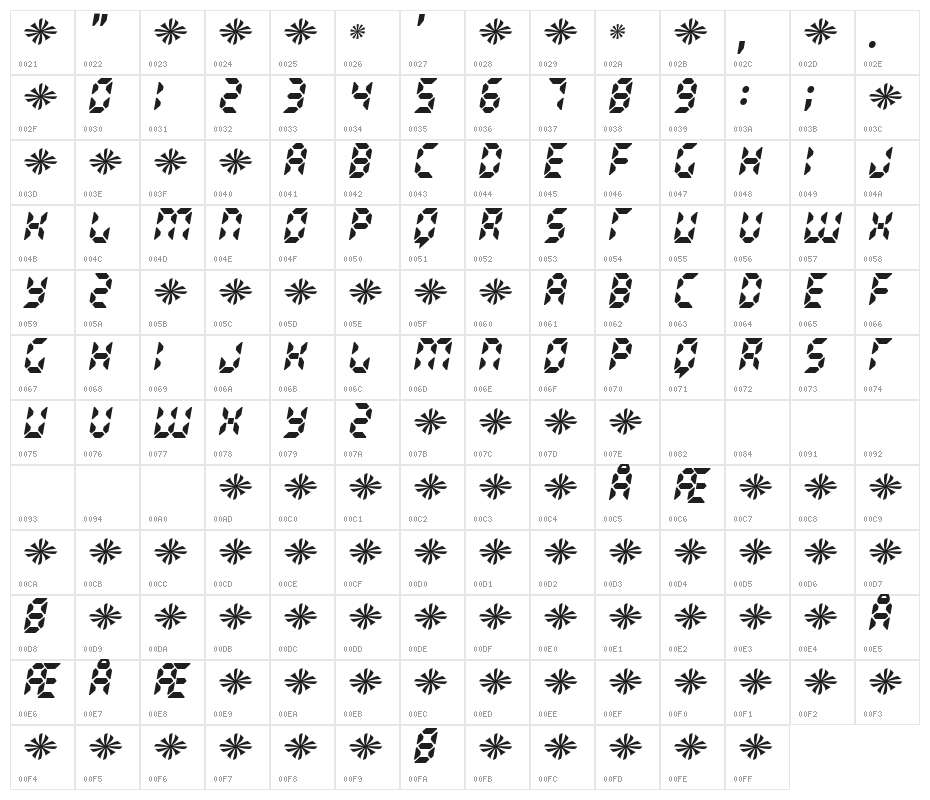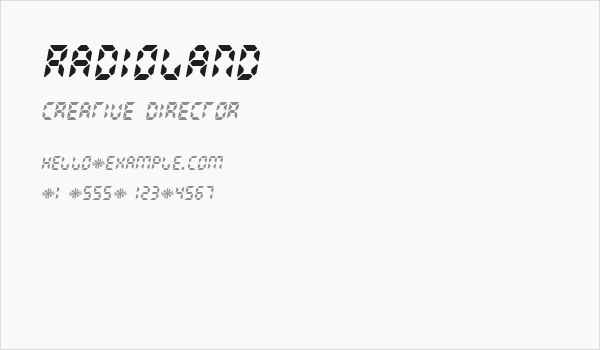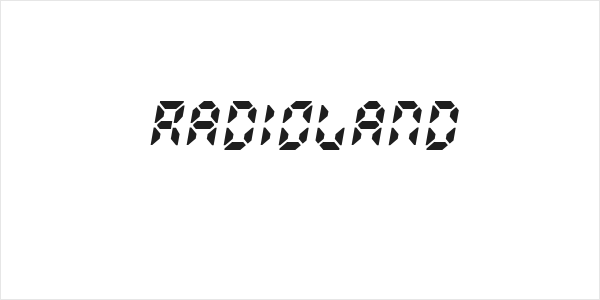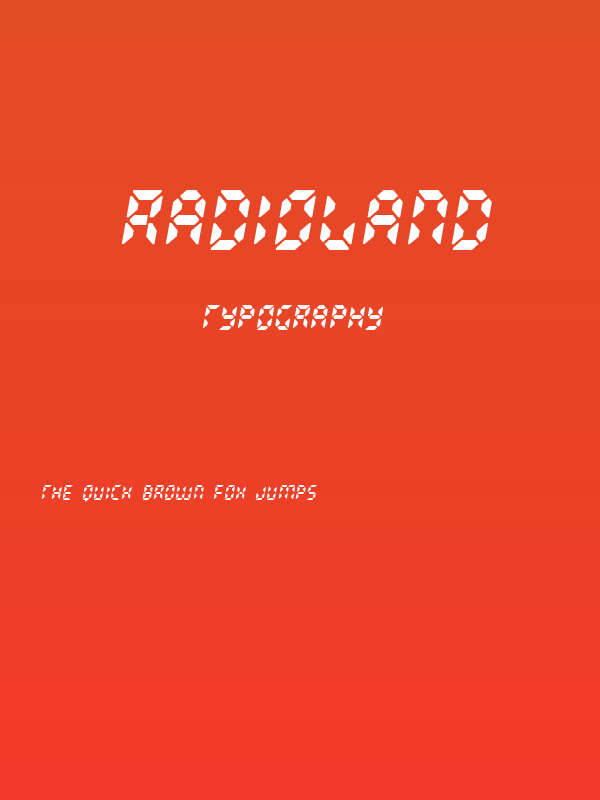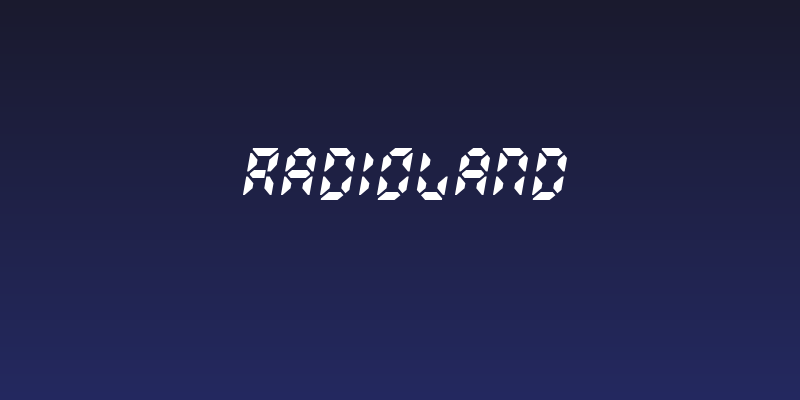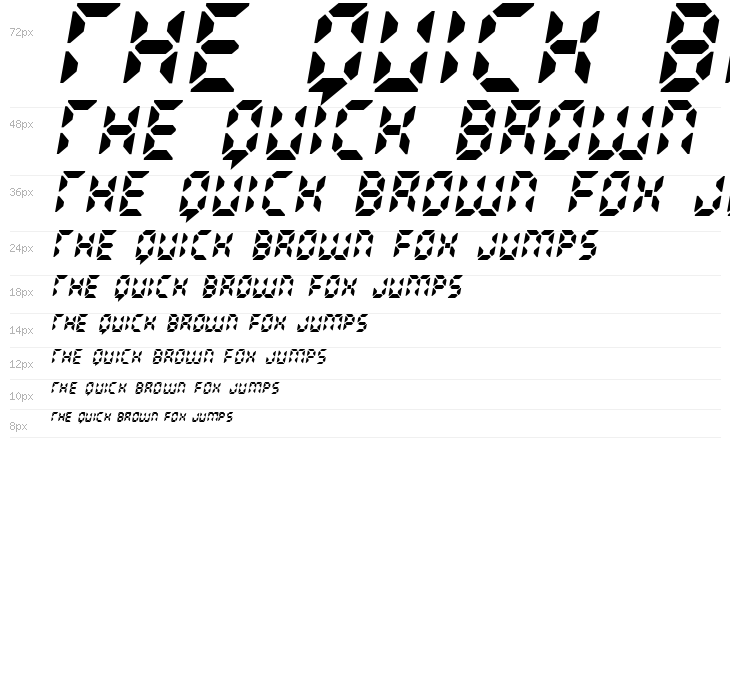
Radioland Font
Radioland Description
This font features a bold, geometric design with a futuristic and digital aesthetic. Each character is constructed from angular shapes, giving it a distinct, tech-inspired look. The uppercase and lowercase letters maintain a consistent style, with sharp edges and a uniform structure. The numbers and special characters follow the same design principles, ensuring a cohesive appearance across all glyphs. This font's unique style makes it stand out, ideal for projects that require a modern and edgy feel.
| Proposed Projects | Ideal for technology-themed projects, digital interfaces, video game graphics, and modern branding. |